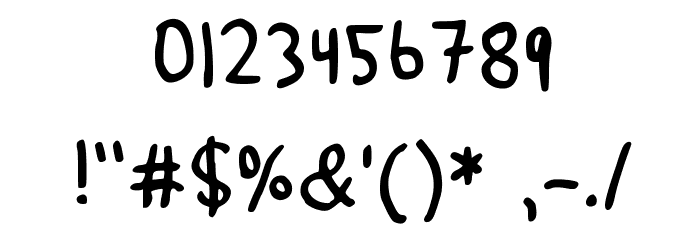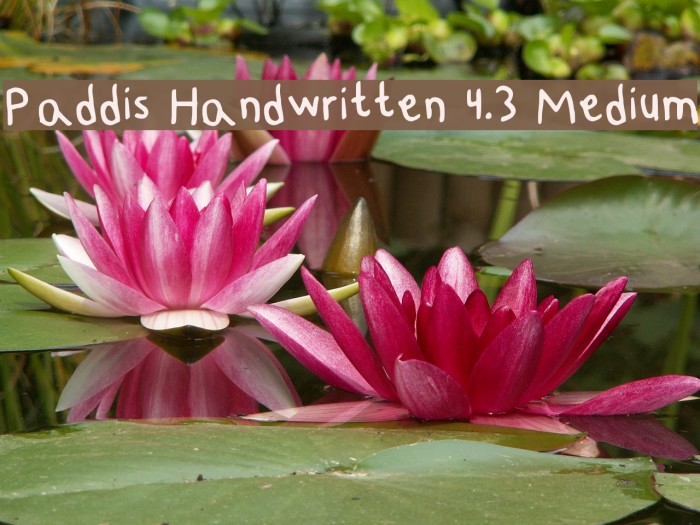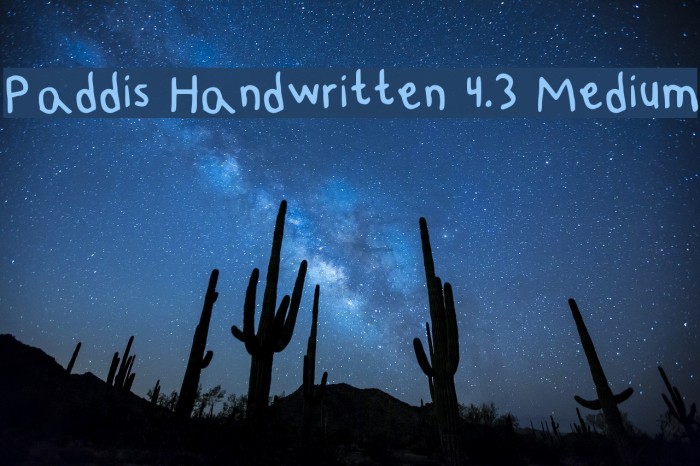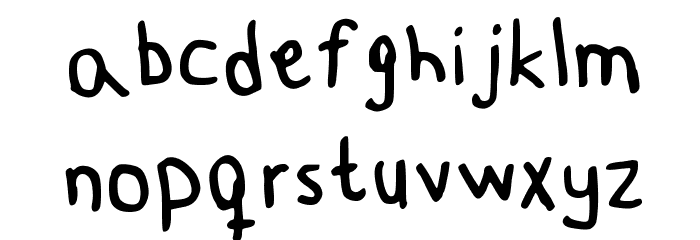
Paddis Handwritten 4.3 Medium Font
Paddis Handwritten 4.3 Medium Description
This font features a playful and casual handwritten style, characterized by its uneven strokes and organic flow. The letters have a slightly irregular baseline, adding to the informal and friendly appearance. The uppercase and lowercase letters maintain a consistent style, with rounded edges and a natural, flowing form. The numerals and special characters complement the alphabet with the same hand-drawn aesthetic. This font exudes a personal touch, making it ideal for projects that require a warm and approachable feel.
A playful, casual handwritten font with an organic flow and rounded edges from Handwritten fonts.
- Font: Paddis Handwritten 4.3 Medium
by HalmiBox - Weight: Medium
- Proposed Projects: Ideal for greeting cards, personal branding, children's books, and informal invitations.
- Overall Style: Casual, Playful
- Use Case: Logos, Invitations, Greeting Cards